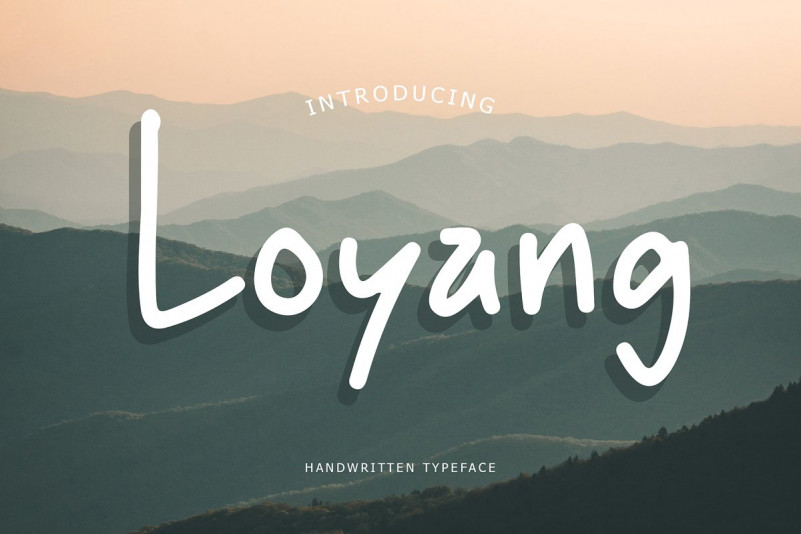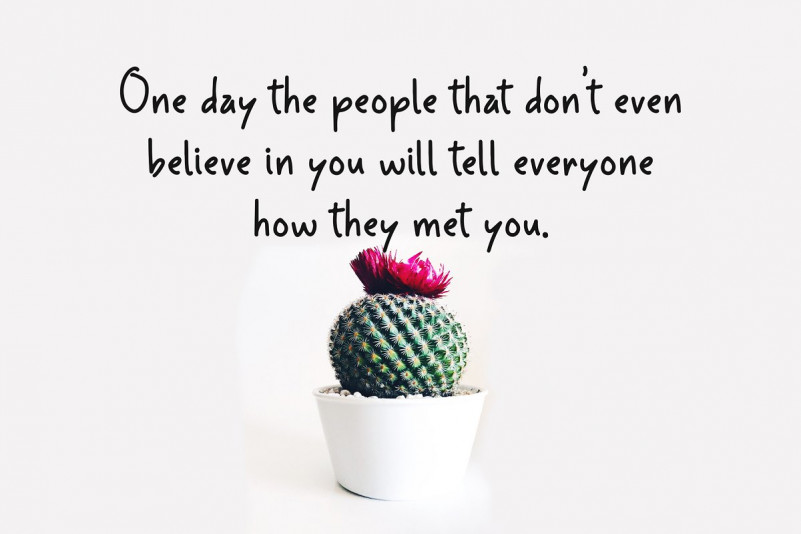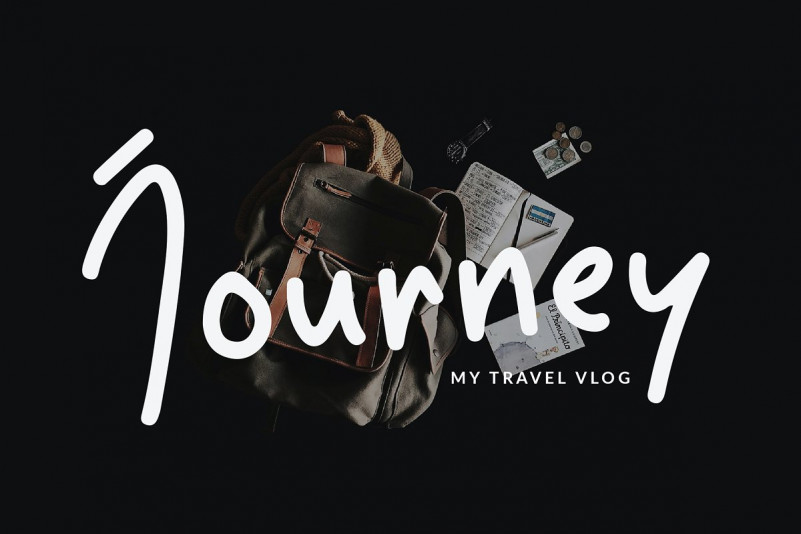
Loyang Font
Loyang Handwritten Typeface is a display handwritten font, can make your text appear playful, excited, and modern!
Loyang is perfect for branding projects, logo, wedding designs, social media posts, advertisements, product packaging, T-shirt design, product designs, label, photography, watermark, invitation, stationery, and any projects.